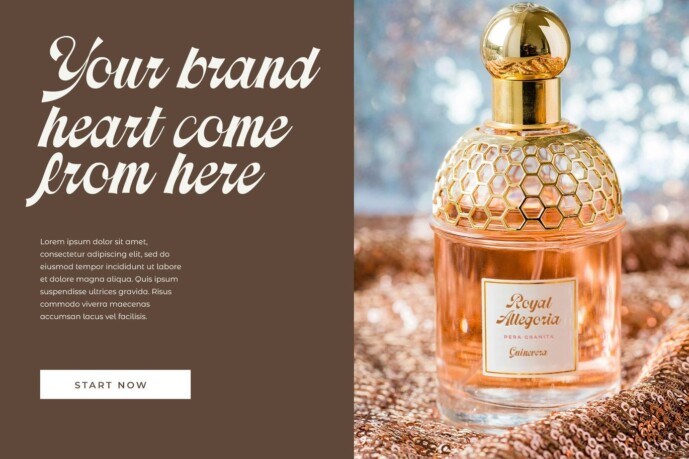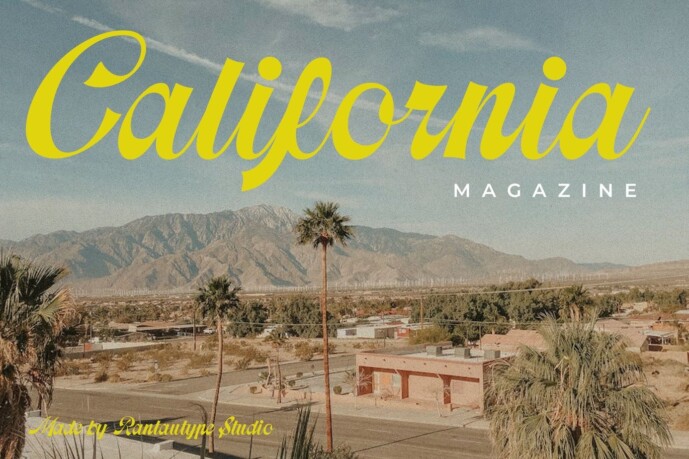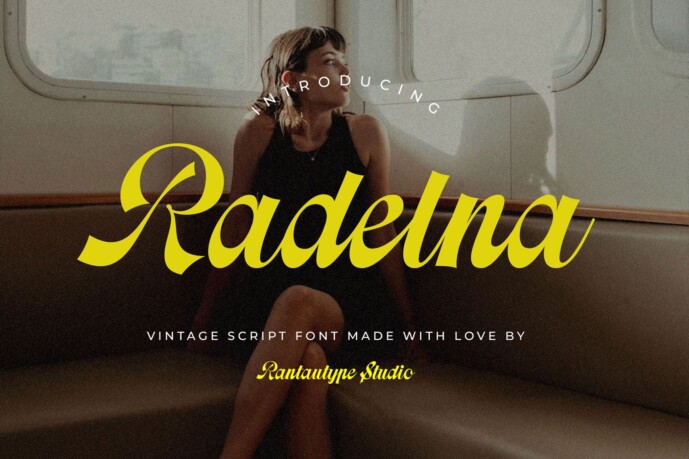
Radelna Font
Radelna Font is a classic script font inspired by vintage visual design. Radelna is a great choice for any creative endeavor, creating modern and chic lifestyle designs such as logotype, headline, cover, branding, invitations, wedding designs, displays and magazines, social media posts, advertisements, print quotes, product packaging, corporate branding, product designs, labels, photography, watermarks, special events and any other projects with a vintage touch.